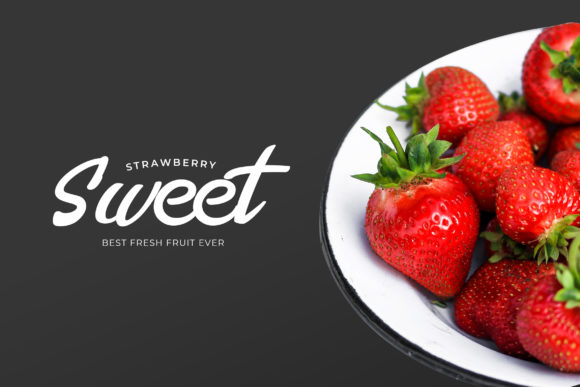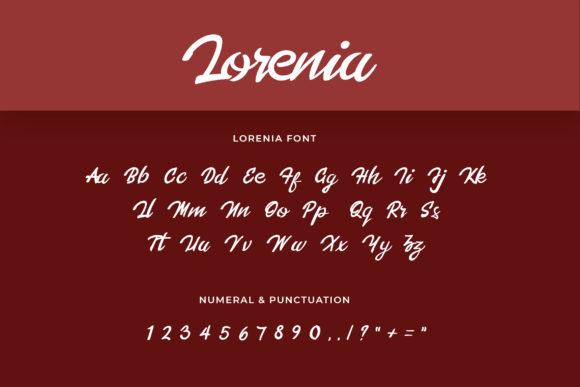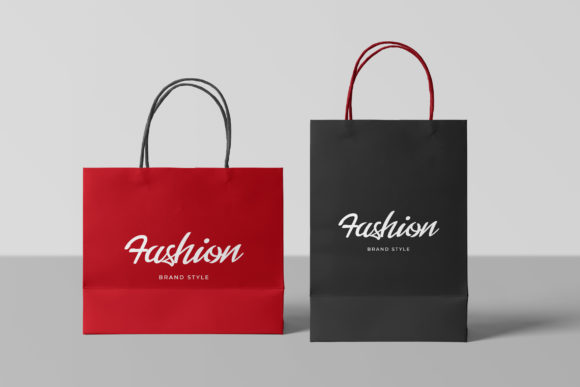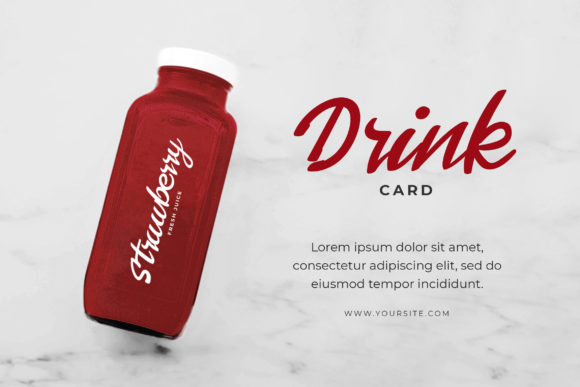
Introduction to Lorenia Font
Have you ever been working on a creative project, pouring your heart and soul into it, only to feel like something’s missing? That’s when the perfect design element comes along, and suddenly everything falls into place. For designers, finding that elusive “wow” factor can be the difference between a good project and a great one.
One such element that can elevate your designs is the Lorenia Font. This sweet handwritten font adds a touch of warmth and personality to any project, making it stand out in a crowd. Whether you’re working on a branding project, a wedding invitation, or a social media graphic, Lorenia Font is sure to bring a high quality feel to your design.
As a valuable design resource, Lorenia Font is a free download that can be used on a transparent background, giving you the flexibility to use it in a variety of creative ways. Its unique charm and character make it a must-have for any designer looking to add a personal touch to their work.
Key Features of Lorenia Font
- High-quality, hand-drawn design ideal for creative projects requiring a unique touch.
- Features a transparent background, allowing for seamless integration into designs with complex backgrounds.
- Includes a wide range of glyphs and characters, making it suitable for use in various languages.
Honest Review: Lorenia Font
I recently had the chance to work with the Lorenia Font, and I must say it’s been a game-changer for my creative project. The high quality of the font is immediately noticeable, and it adds a level of sophistication to any design.
One of the standout features of Lorenia Font is its transparent background, making it perfect for designs that require a clean and minimalist look. I’ve used it extensively in my recent branding project, and it’s been a huge hit with my clients.
- High-quality font with crisp and clear lines
- Transparent background for seamless design integration
- May not be suitable for designs that require bold or dramatic font effects
- Some users may find the font a bit too minimalist for their taste
Overall, I’m thoroughly impressed with the Lorenia Font. It’s a versatile and reliable design resource that’s perfect for any creative project. With its high quality and transparent background, it’s a must-have for any designer looking to elevate their designs.
Lorenia Font
Tips for Getting the Most Out of Lorenia Font
Use the Lorenia Font in combination with other design elements to create a unique look. Experiment with different font sizes and colors to add depth and visual interest to your design. Make sure to adjust the font size and style to suit the specific needs of your project.
The Lorenia Font is perfect for creating a high-quality design for a creative project. It can be used for a variety of applications, including social media posts, presentations, infographics, and more. This font is also great for creating a free download design resource with a transparent background.